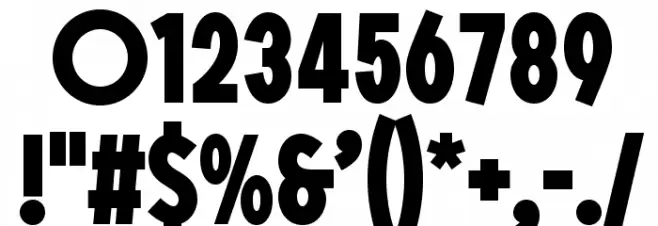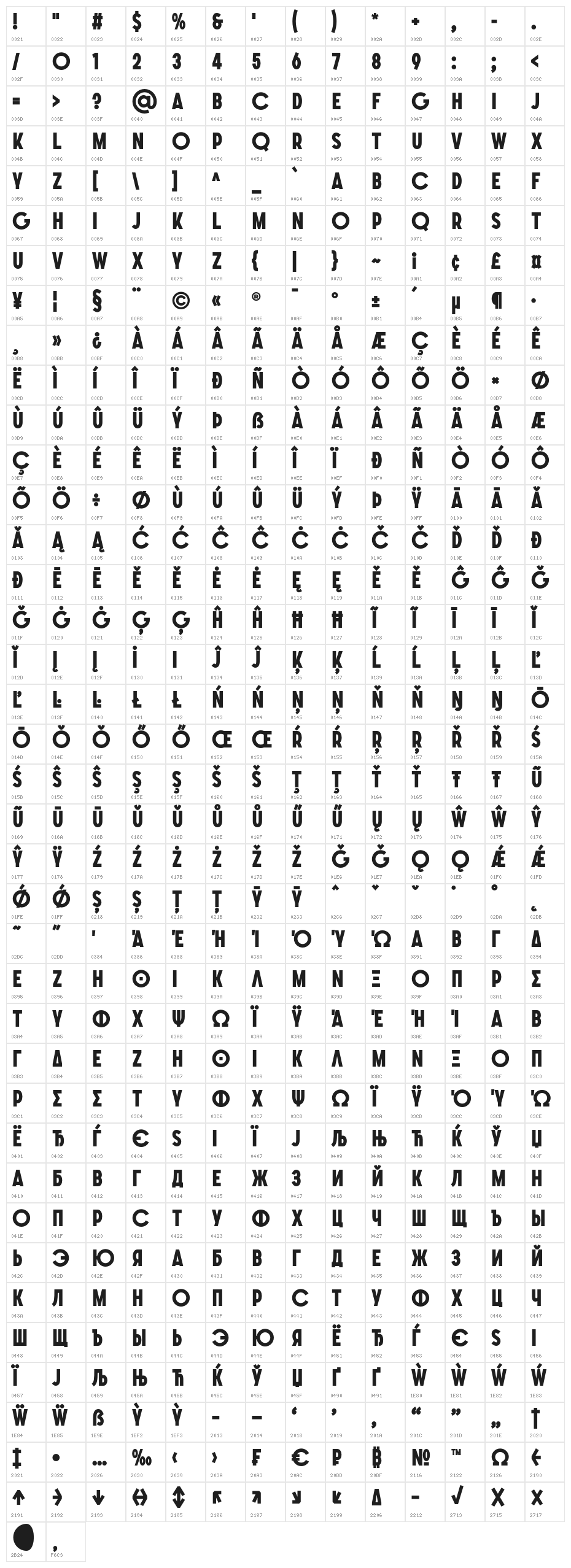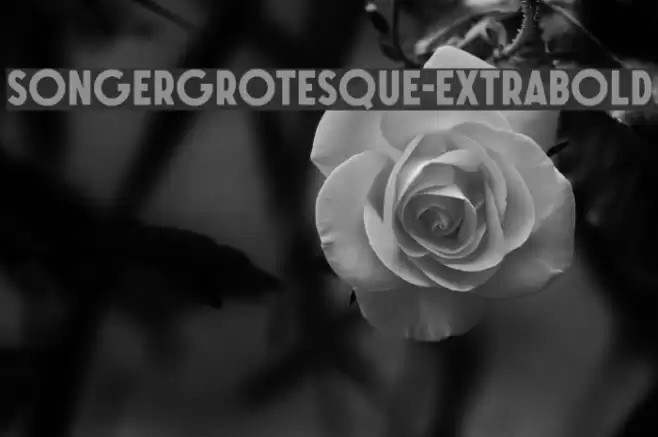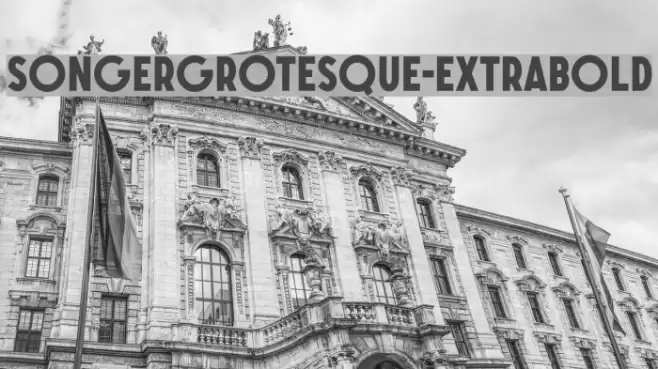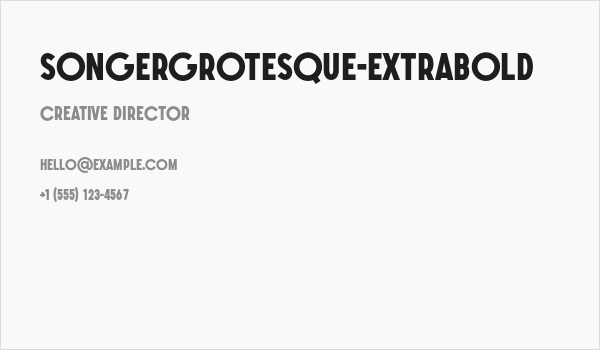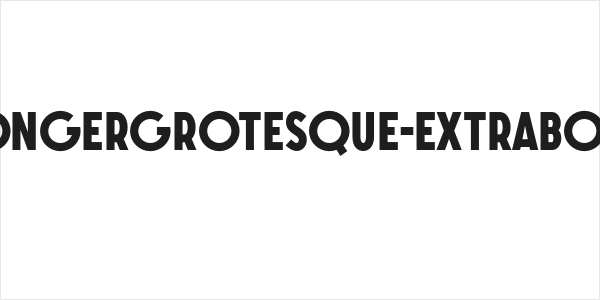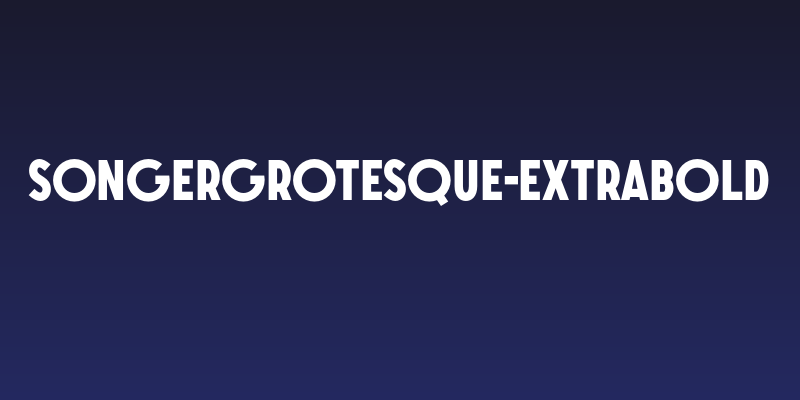
SONGERGrotesque-ExtraBold Font
SONGERGrotesque-ExtraBold Description
This font features a bold and striking appearance with thick, uniform strokes that create a strong visual impact. The characters are designed with a geometric precision, offering a modern and clean look. The uppercase and lowercase letters maintain a consistent style, with rounded edges that soften the overall boldness. The numerals and special characters are equally robust, ensuring legibility and emphasis. This font's design is ideal for making statements, with its extra bold weight providing a commanding presence.
| Proposed Projects | Ideal for branding, advertising, headlines, posters, and any project requiring a strong visual impact. |